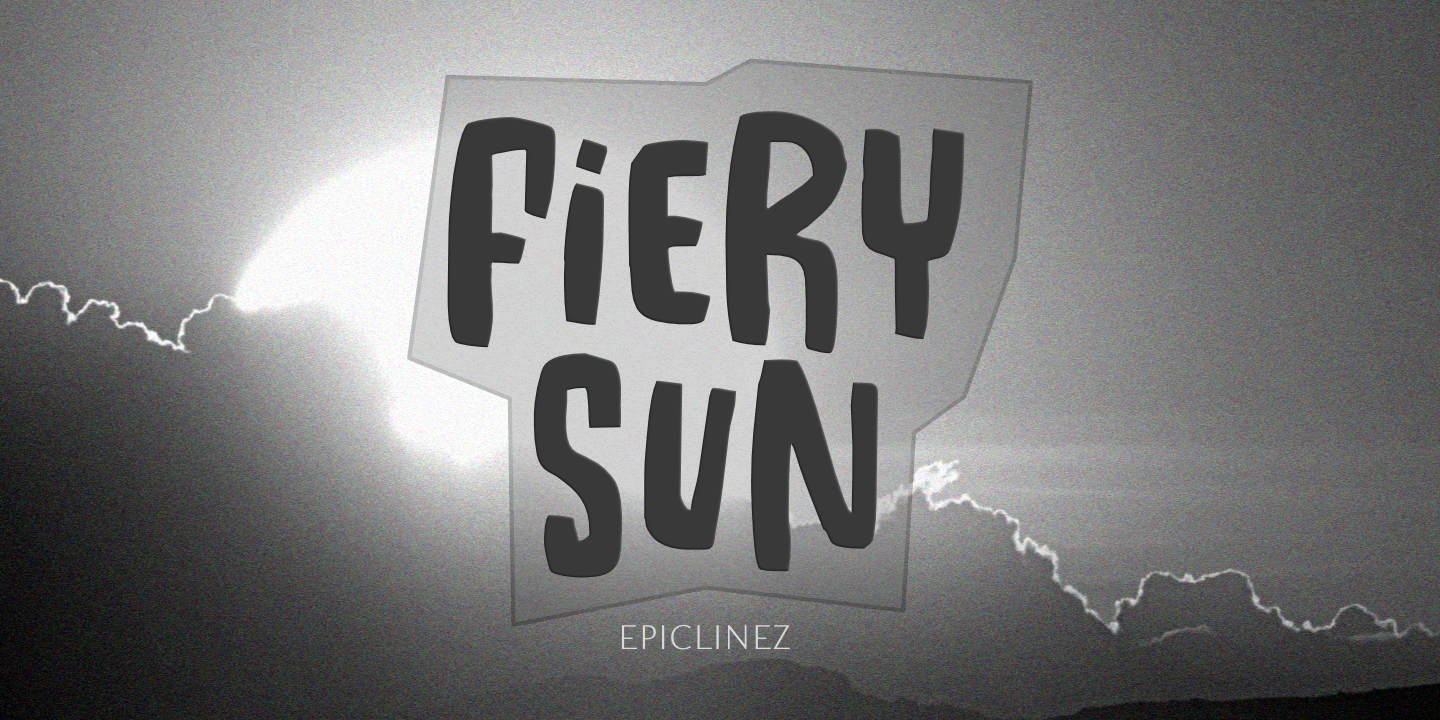
Fiery Sun Font is perfect for solar energy company branding, summer festival posters, outdoor sports equipment labels, desert adventure campaigns, hot sauce packaging, beach club signage, energy drink advertisements, and blazing entertainment marketing materials. This radiant typeface excels in applications where solar intensity and burning passion are essential.
What makes Fiery Sun Font so exciting is its explosive ability to capture the raw power and scorching energy of the sun through bold, flame-inspired letterforms that embody the unstoppable force of solar radiation and burning determination. The font features dynamic character shapes with solar flare details and fire-influenced styling that evoke images of blazing sunsets, desert heat, and the life-giving power of our solar system's central star. Its energy-driven design philosophy combines solar authenticity with contemporary boldness, making it perfect for energy brands seeking to convey natural power, intense passion, and connection to renewable energy communities and solar power innovation.
Fiery Sun Font belongs to the solar display font family, specifically designed for energy and heat-themed branding applications. This typeface family emphasizes blazing visual impact through sun-inspired styling and fiery character elements, ensuring authentic solar presentation across various energy and outdoor adventure-focused design projects.
Ignite powerful solar energy with Fiery Sun Font Free Download, a typeface that embodies the unstoppable intensity of solar power and burning passion. This blazing font delivers exceptional energy for solar applications, featuring comprehensive character sets with flame symbols and solar punctuation marks that capture the essence of renewable energy and natural power. Its powerfully crafted letterforms maintain excellent visibility while preserving the authentic solar aesthetic across various sizes, from small energy meter labels to massive solar farm entrance signs. The font's distinctive fiery personality makes it invaluable for designers creating energy brands, solar materials, and powerful content where conveying intensity, natural power, and solar innovation is crucial for connecting with environmentally conscious audiences and renewable energy communities seeking sustainable power solutions.